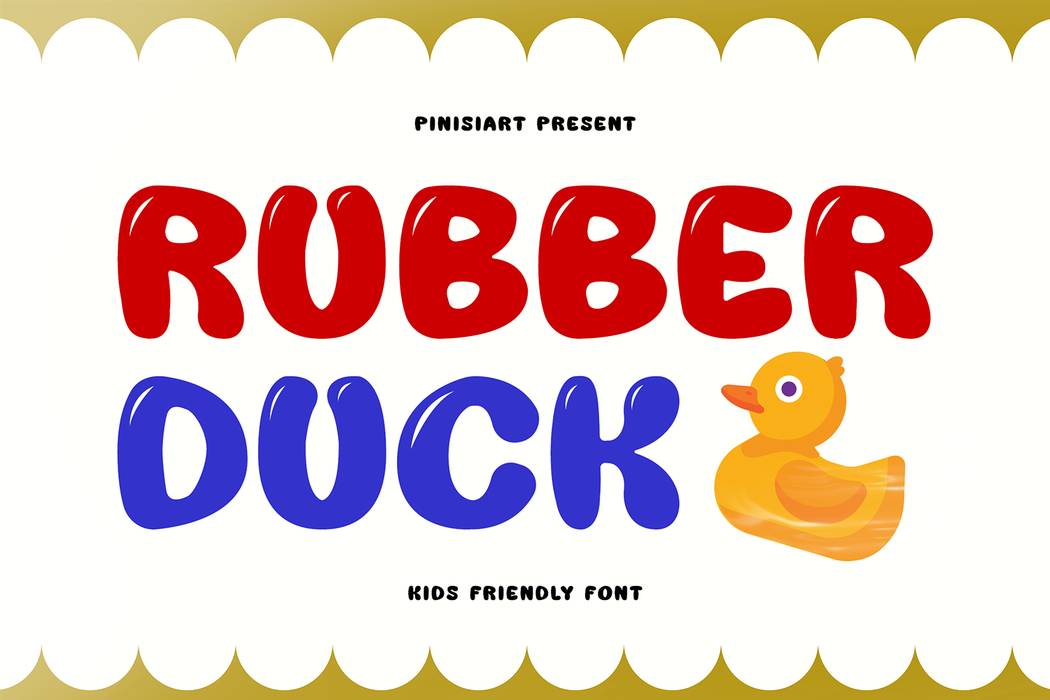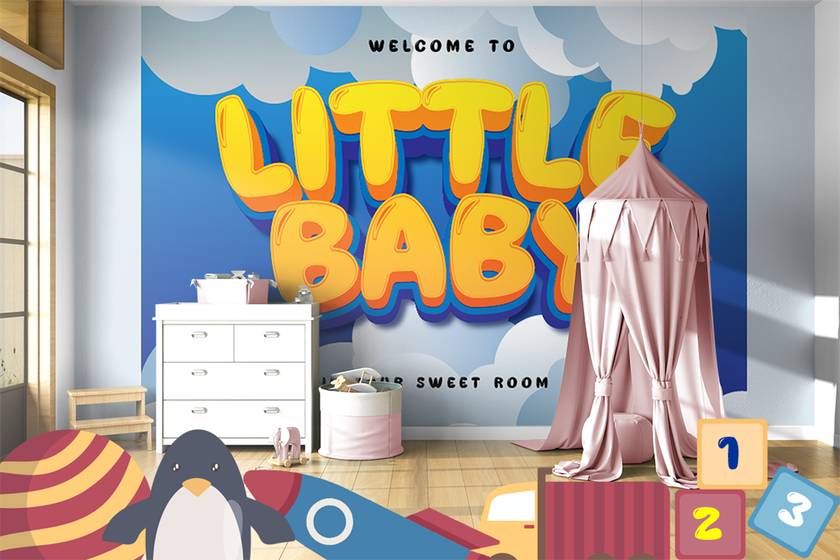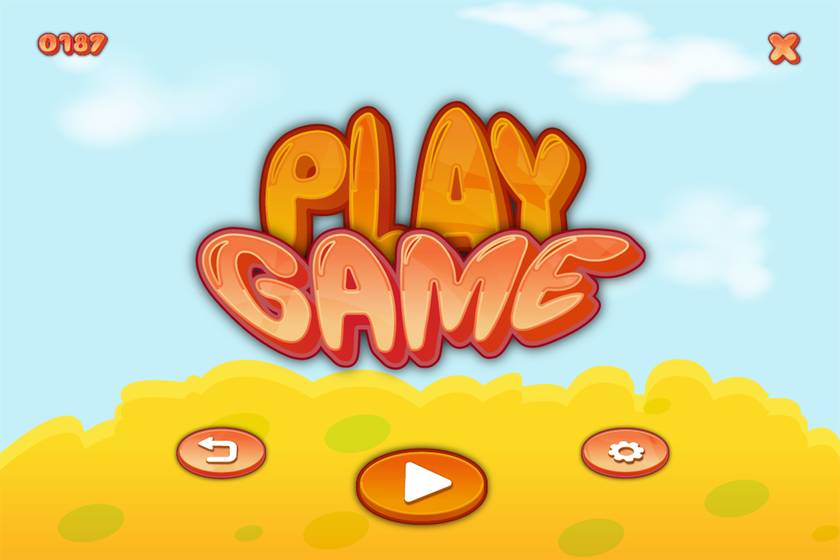
Rubber Duck is a playful and bold sans serif font with rounded, chunky letterforms that create a soft, friendly vibe. Its thick strokes, high x-height, and slightly irregular shapes make it perfect for fun, informal designs like children's books, logos, and posters where a cheerful and approachable feel is desired. This font shines in creative projects that want to convey warmth and a touch of whimsy.
Rubber Duck Font
About Rubber Duck Font